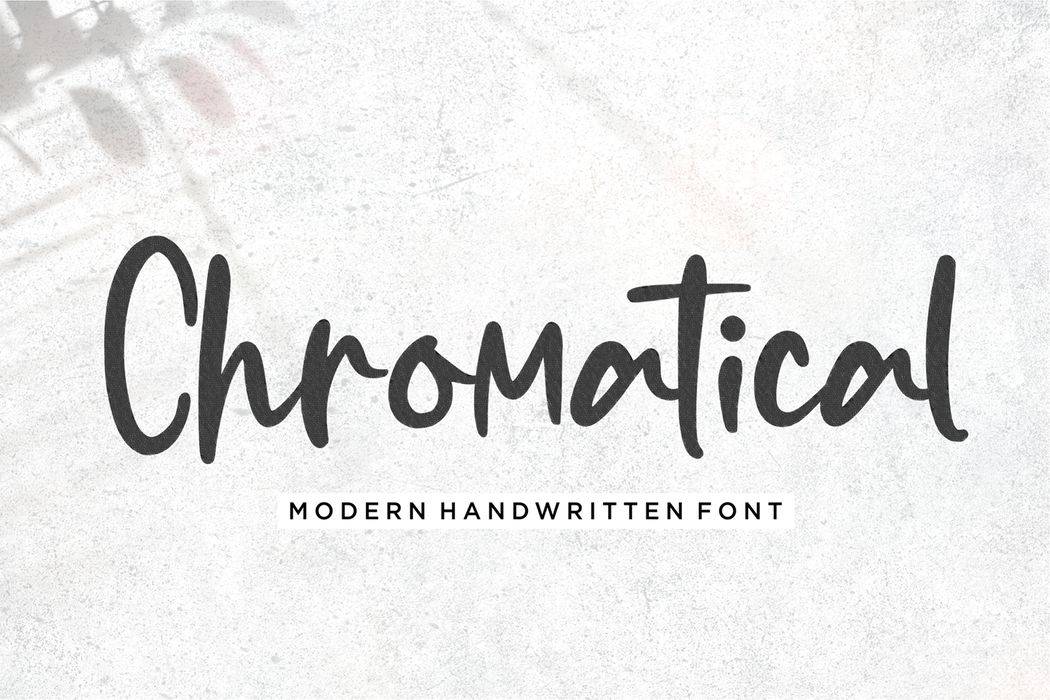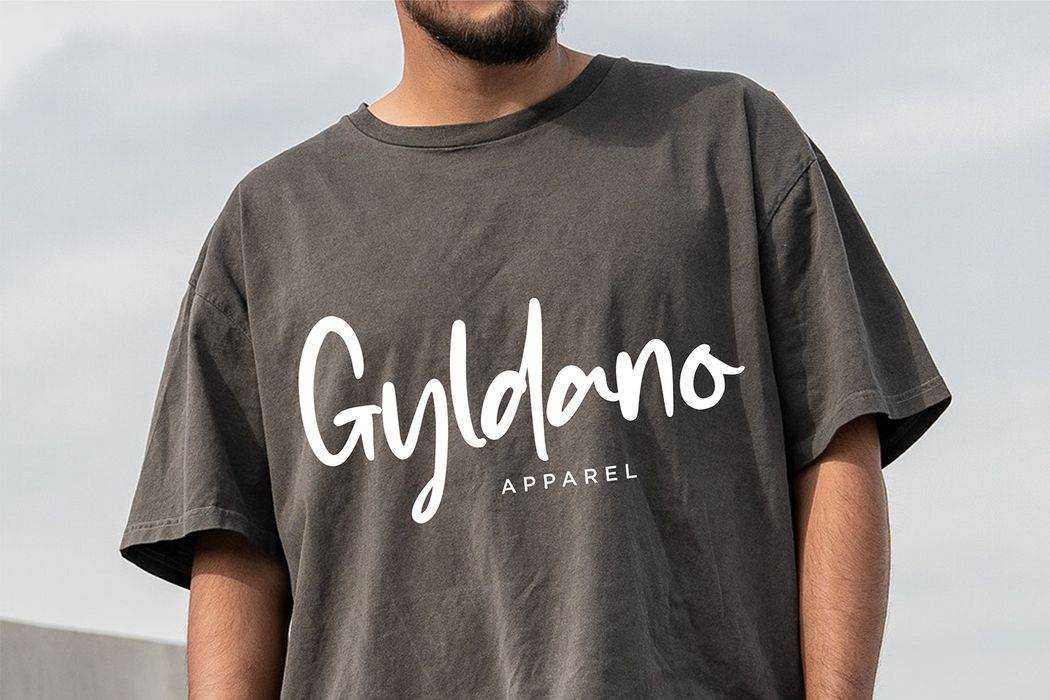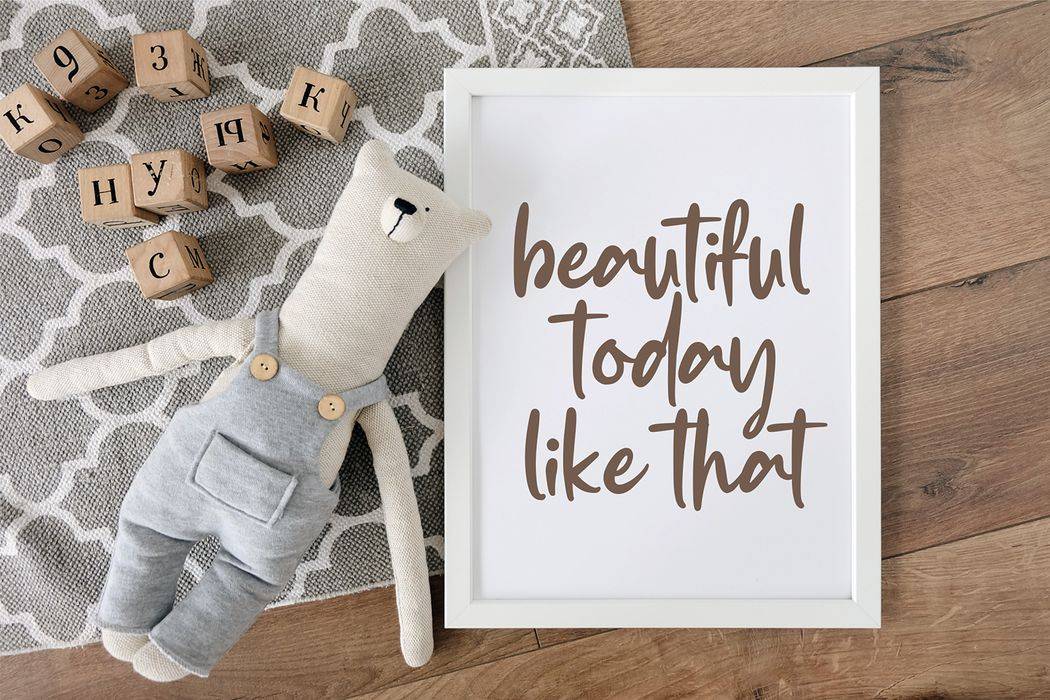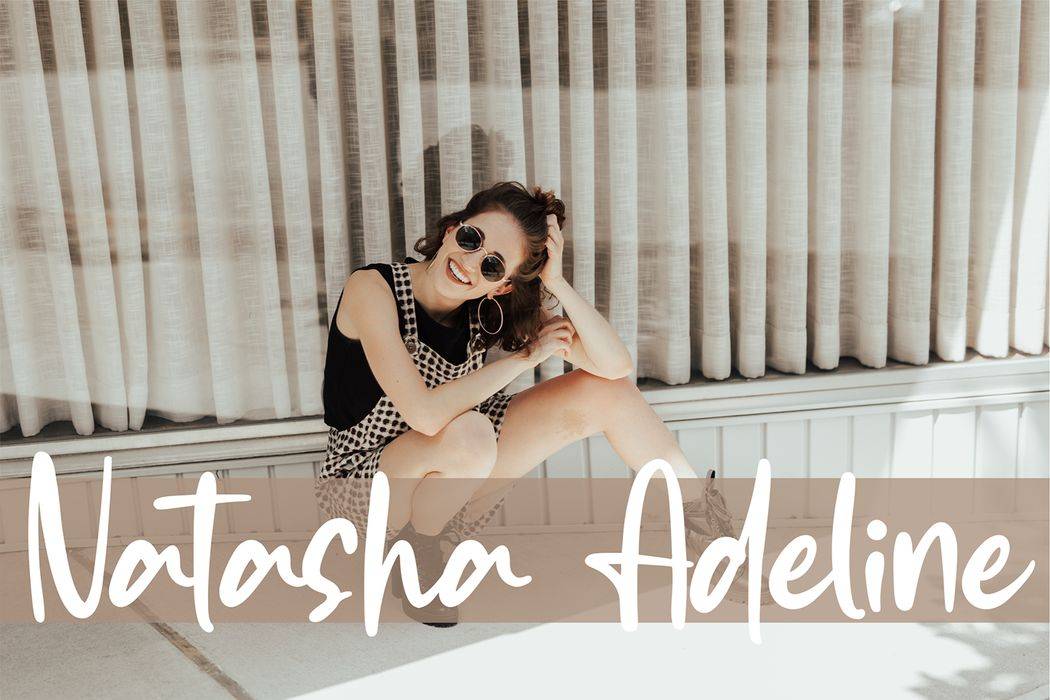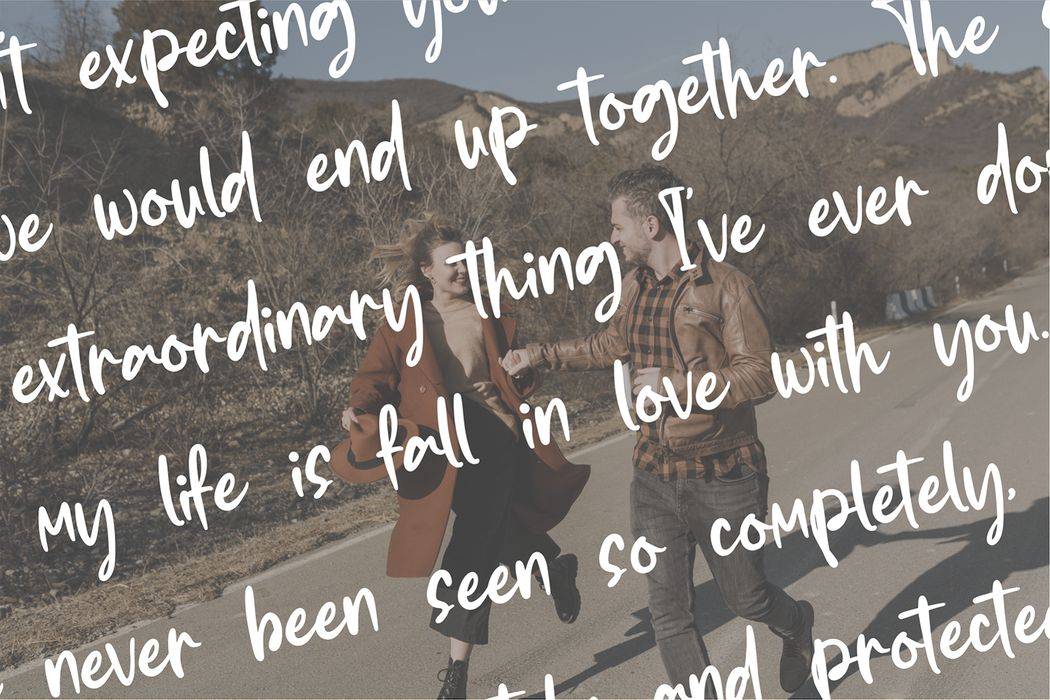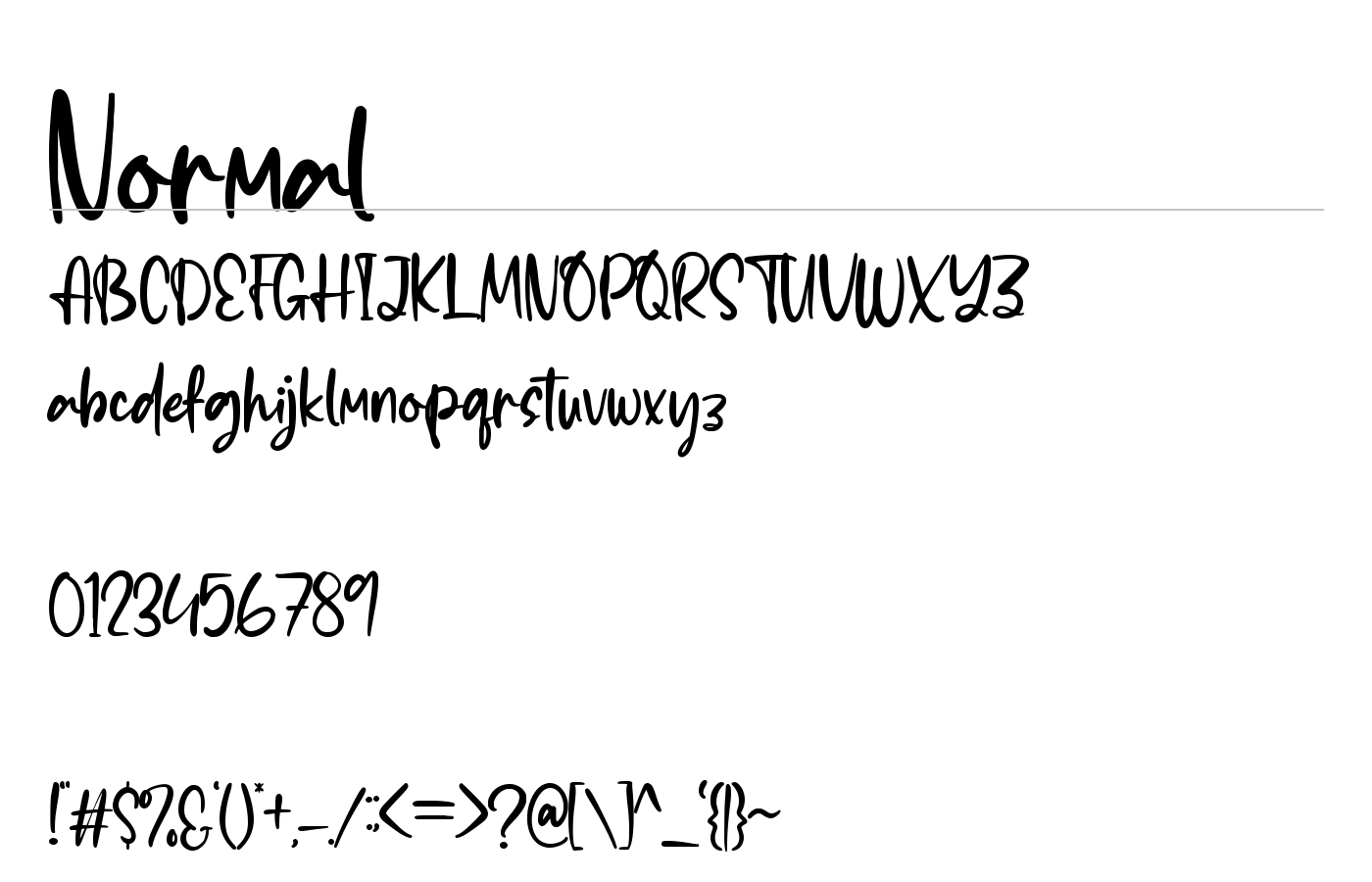
Chromatical is a playful, hand-drawn sans serif font with a casual and friendly vibe. Its irregular, slightly condensed letterforms and lively strokes give it an organic, personal touch, perfect for creative projects, informal branding, or eye-catching headlines. This font works well where a warm, human feel is desired, such as in invitations, posters, or lifestyle blogs.
Chromatical Font